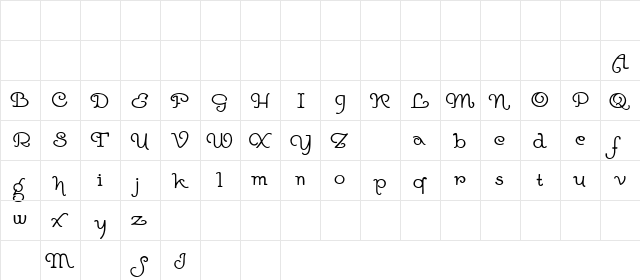
Goddard Demo Regular Font Preview
Goddard Demo Regular
Design Context for Goddard Demo Typeface
Goddard Demo is a composed and adaptable typeface that performs quietly and consistently across a wide range of design contexts.